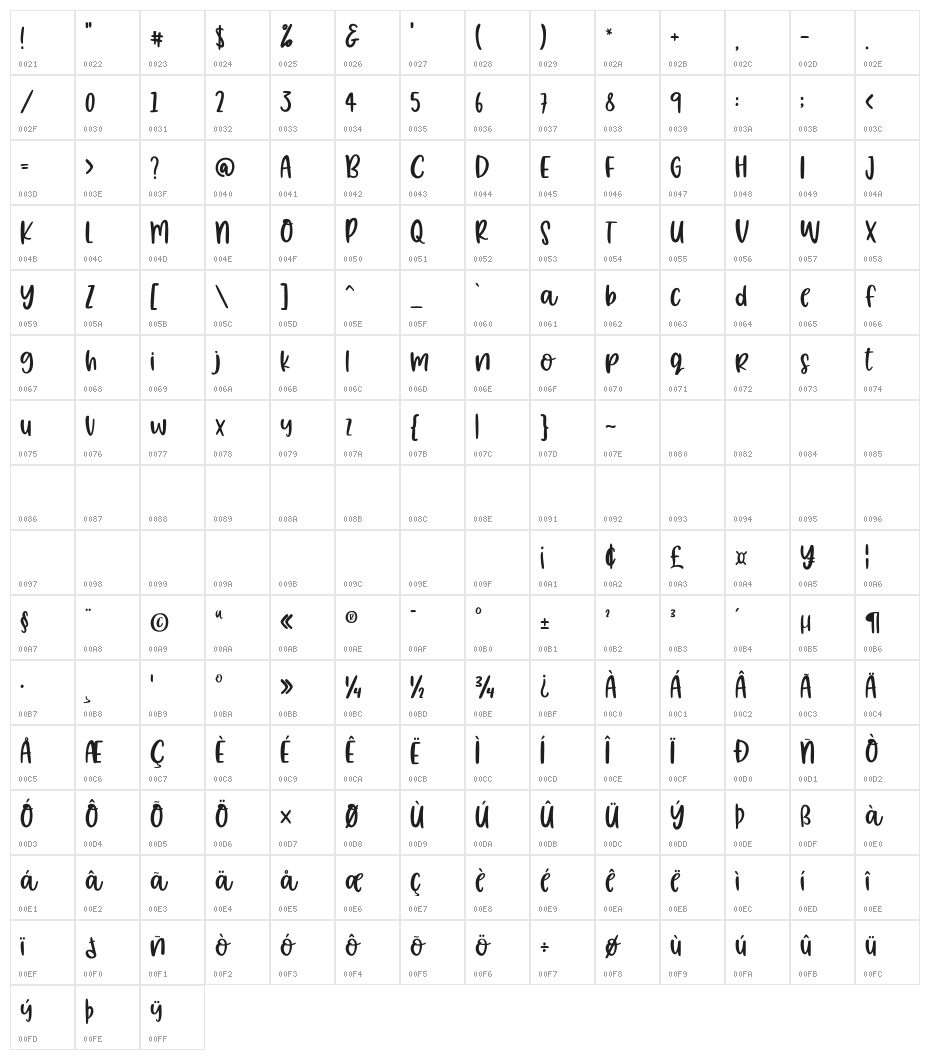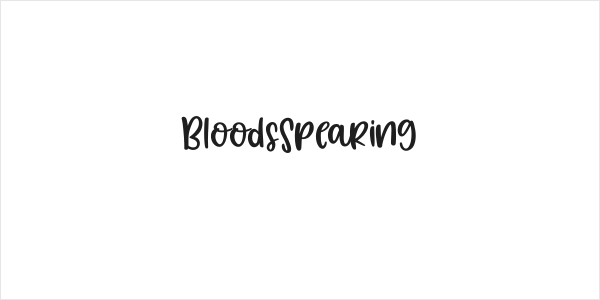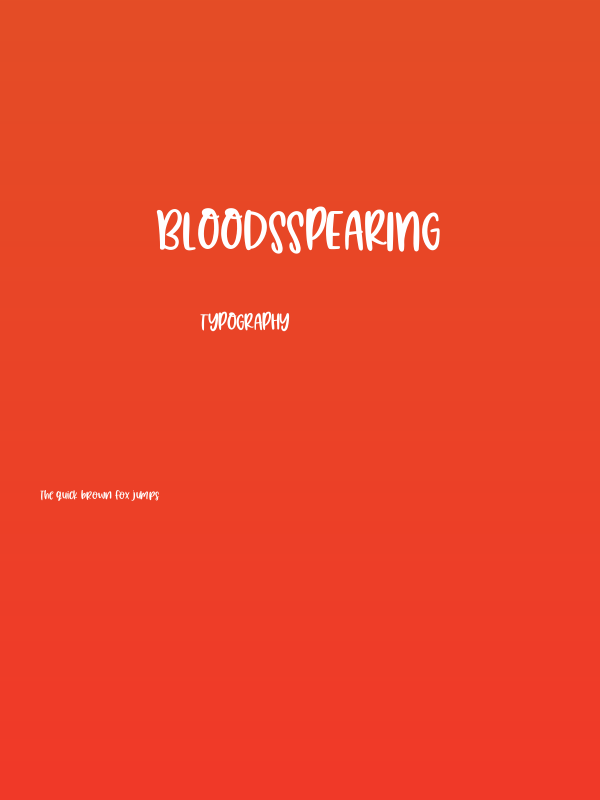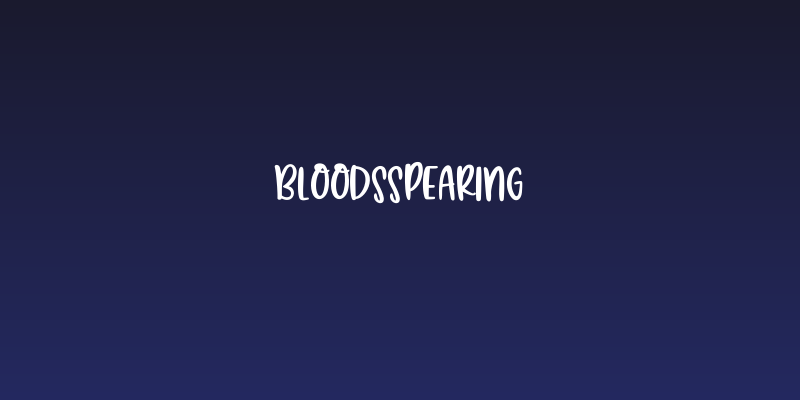
BloodsSpearing Font
BloodsSpearing Description
A playful, handwritten script font with rounded edges and a casual, friendly appearance. The strokes are consistent in thickness, giving it a uniform look, and the characters are slightly condensed with a natural, flowing rhythm.
| Overall Style | Playful, Casual, Modern |
| Use Case | Logos, Headlines, Invitations, Social Media |
| Proposed Projects | Greeting cards, social media graphics, children's books, invitations, branding for creative businesses. |